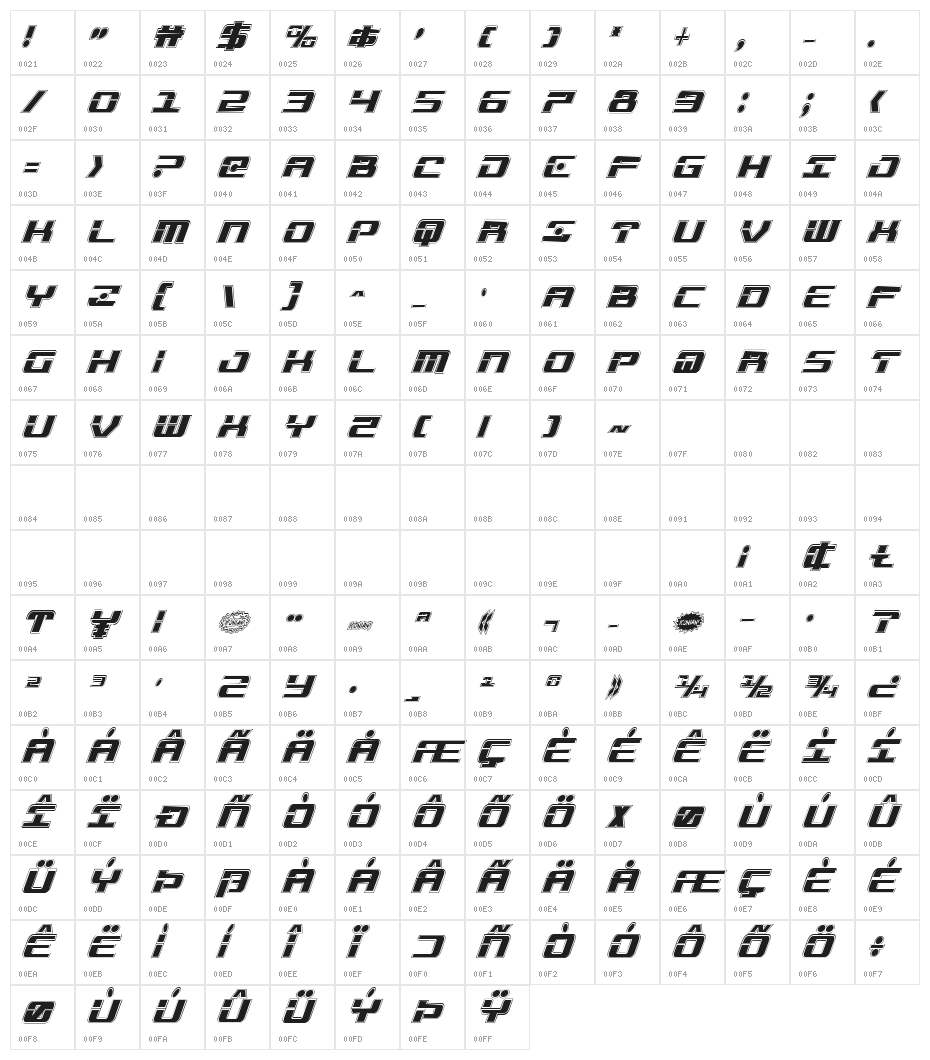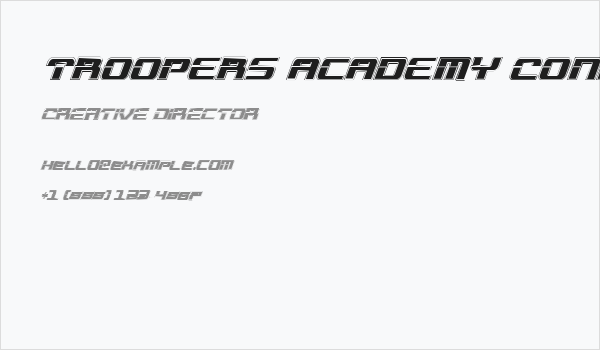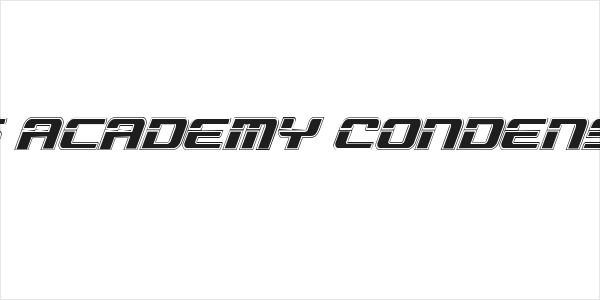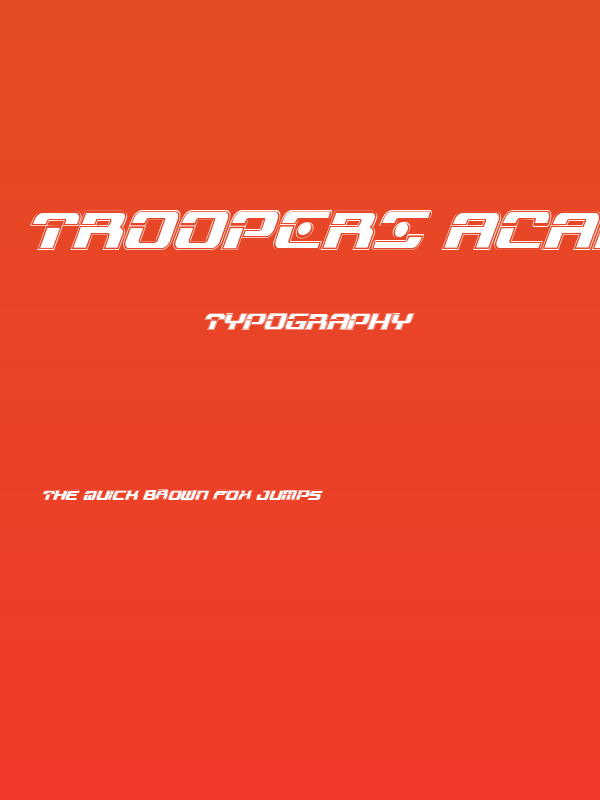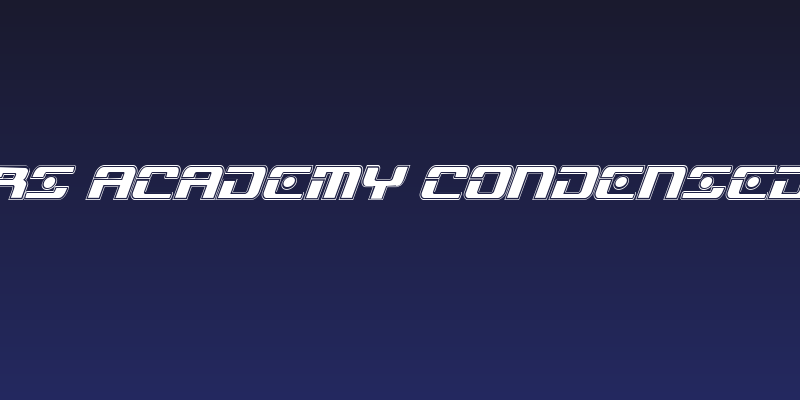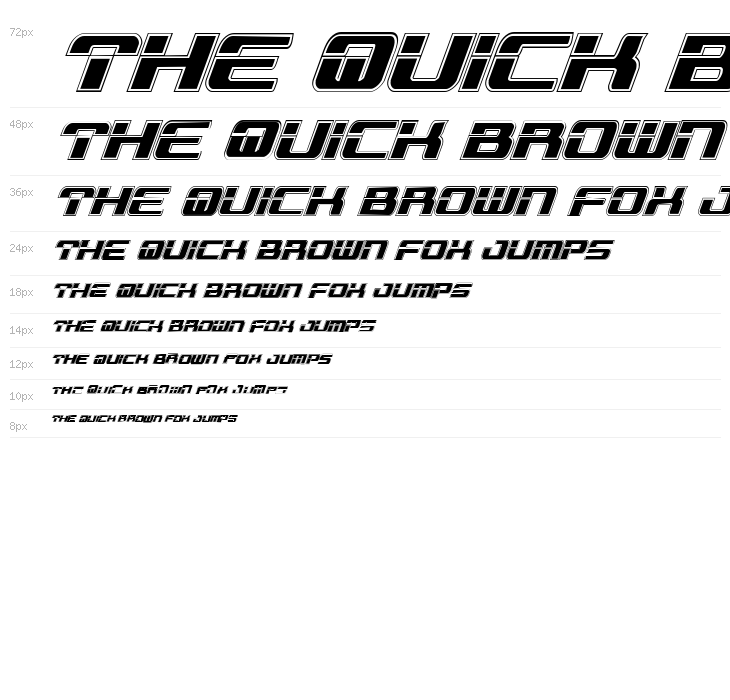
Troopers Academy Condensed Italic Font
Troopers Academy Condensed Italic Description
This font features a futuristic and dynamic style, characterized by its bold, condensed letterforms and italic slant. The design incorporates a double-line effect, giving it a layered, three-dimensional appearance. The uppercase letters are angular and geometric, with sharp edges and a consistent stroke width. The numerals and special characters maintain this bold and structured aesthetic, ensuring uniformity across all glyphs. This font's unique style makes it stand out, ideal for projects that require a modern and edgy look.
| Overall Style | Futuristic, Modern |
| Proposed Projects | Ideal for sci-fi themed posters, video game titles, tech branding, and futuristic event invitations. |